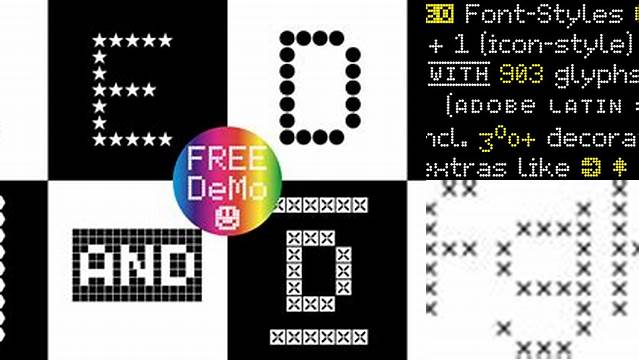
Led Pixel Font: Free CR Slab Serif Download Guide
Hey guys! Are you on the hunt for that perfect led pixel font with a cool CR slab serif vibe? You've landed in the right spot! In this article, we’re diving deep into the world of led pixel fonts, especially those with that awesome CR slab serif look. We’ll explore what makes these fonts so special, where you can snag them for free, and how to use them to make your projects pop. So, buckle up and let's get started!
What is a Led Pixel Font?
So, what exactly is a led pixel font? Think of those old-school digital displays – the ones with the blocky, pixelated letters that give off a retro-futuristic vibe. That's the essence of a led pixel font. These fonts are designed to mimic the appearance of text on digital displays, making them perfect for projects that need a touch of nostalgia or a modern, techy feel. Imagine crafting a logo for a gaming company, designing a sci-fi themed poster, or even sprucing up your website with a unique header – a led pixel font can add that extra oomph. But, it’s not just about the look. These fonts also carry a certain charm, reminding us of the early days of digital technology while still feeling fresh and relevant today. Choosing the right led pixel font can really set the tone for your design, so let’s explore further!
Understanding CR Slab Serif Fonts
Now, let’s talk about CR slab serif fonts. Slab serifs are those fonts with thick, blocky serifs (the little feet at the end of the strokes) that give them a bold and sturdy appearance. CR, in this context, often refers to specific design characteristics or the creator of the font. When you combine the led pixel aesthetic with a CR slab serif, you get a font that’s both retro and strong, making it super versatile for various projects. These fonts have a certain presence, commanding attention without being overly fussy. Think about using a CR slab serif led pixel font for headlines, branding materials, or even in digital art where you want a blend of vintage and modern styles. The key is to understand how the blocky nature of the slab serif complements the pixelated style, creating a unique visual impact. What makes CR slab serifs particularly interesting is their ability to convey both a sense of history and a forward-looking design, which is why they’re such a popular choice among designers.
Why Choose a Led Pixel CR Slab Serif Font?
Why should you even consider a led pixel CR slab serif font? Well, these fonts offer a unique blend of retro charm and modern boldness that can make your designs stand out. They’re perfect for projects that need a touch of nostalgia with a contemporary twist. Imagine using one for a video game title, a tech startup's logo, or even a cool poster for a music event. The led pixel style gives it that old-school digital feel, while the slab serif adds a sense of strength and stability. This combination makes them incredibly versatile, fitting well in both digital and print mediums. Plus, a well-chosen led pixel CR slab serif font can communicate a sense of innovation and history simultaneously, which is a powerful message for any brand or project. The right font can truly elevate your design, and this particular style is definitely worth exploring if you're looking for something distinctive and memorable.
Key Features of a Good Led Pixel Font
What makes a led pixel font truly good? It’s not just about looking retro; there are several key features to consider. First, readability is crucial. Even though pixel fonts are blocky by nature, a well-designed font will still be easy to read, especially in longer texts or smaller sizes. The spacing between letters and the overall shape of each character should be clear and distinct. Second, consistency is key. The pixelation should be uniform across all characters, maintaining a cohesive look throughout the font. Third, versatility matters. A good led pixel font should work well in various sizes and contexts, whether it’s a headline, a logo, or body text. Finally, completeness is important. Ensure the font includes all the characters you need, including uppercase and lowercase letters, numbers, punctuation, and any special symbols. When you're evaluating a led pixel font, keep these features in mind to ensure you’re choosing a font that not only looks cool but is also functional and practical for your design needs.
Using Led Pixel Fonts in Graphic Design
So, you’ve got your led pixel font installed and ready to go – awesome! Now, let’s talk about how to use it effectively in graphic design. Led pixel fonts are fantastic for projects that need a retro, techy, or digital feel. Think about using them for video game graphics, website headers, posters, and logos. They can add a unique touch that makes your design stand out. When using a led pixel font, consider the overall aesthetic you’re aiming for. These fonts often pair well with other retro elements, like vintage color palettes and pixel art. However, they can also create a cool contrast when used in modern designs. Experiment with different sizes and weights to see what works best for your project. And remember, readability is key! While the pixelated style is cool, make sure your text is still easy to read, especially in smaller sizes. With a little creativity, you can use a led pixel font to create some seriously eye-catching designs.
Pairing Led Pixel Fonts with Other Fonts
One of the coolest things about using a led pixel font is pairing it with other fonts to create a balanced and visually appealing design. But how do you do it right? The key is to find fonts that complement the led pixel style without overpowering it. A good rule of thumb is to pair a led pixel font with a cleaner, more modern font for body text. This creates a nice contrast and ensures readability. For example, you might pair a led pixel slab serif font with a sans-serif font like Helvetica or Arial for the body text. This combination keeps the focus on the headline while maintaining a clean and professional look for the rest of the content. Alternatively, you could pair it with a simple serif font for a more classic touch. Experiment with different combinations to see what works best for your project. Just remember, balance is key! You want your font pairings to enhance your design, not distract from it.
Woo-hoo! You've made it through the ultimate guide to led pixel fonts and CR slab serifs! We've covered everything from what these fonts are and why they're so awesome, to where you can find them for free and how to use them in your designs. Now you're armed with the knowledge to create some seriously cool and unique projects. So go forth and pixelate, my friends! And remember, have fun with it! Experiment, be creative, and let those led pixel fonts shine!